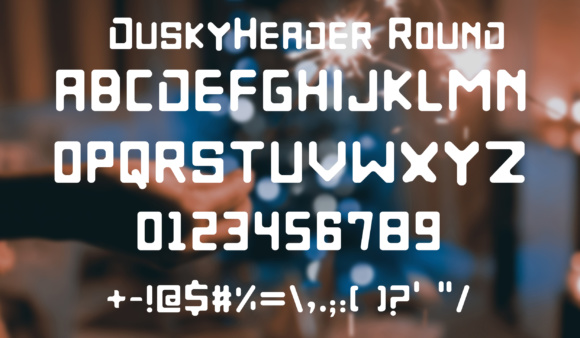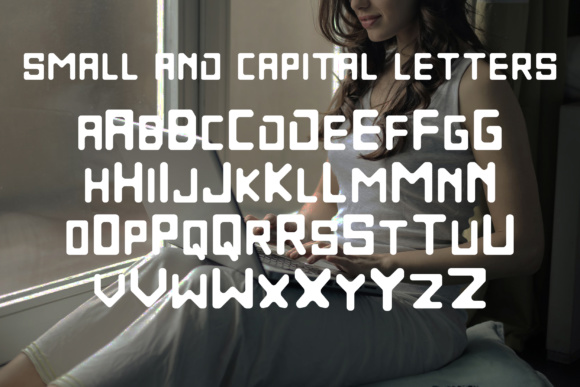
DuskyHeader Round Font: Elevate Your Designs with a Cool and Catchy Style
Are you a designer or crafter looking for a font that can add a touch of coolness to your creations? Look no further than the DuskyHeader Round font! This stylish font is perfect for use on t-shirts, logos, posters, and more, and can be used as a header font or to highlight important text to grab the attention of your viewers.
What Makes DuskyHeader Round Font So Special?
DuskyHeader Round font is a unique and modern sans-serif font that features rounded edges and a distinctive aesthetic. Its clean and simple design makes it highly versatile, allowing it to be used in a wide range of design projects. Whether you’re creating a logo, poster, or t-shirt design, DuskyHeader Round font is sure to make your text stand out.
Key Features of DuskyHeader Round Font
• Rounded Edges: The rounded edges of DuskyHeader Round font give it a soft and friendly feel, making it perfect for designs that require a more approachable look.
• Clean and Simple Design: The clean and simple design of DuskyHeader Round font makes it easy to read and understand, even at small sizes.
• Highly Versatile: DuskyHeader Round font can be used in a wide range of design projects, from logos and posters to t-shirts and more.
• Attention-Grabbing: The unique style of DuskyHeader Round font makes it perfect for use as a header font or to highlight important text and grab the attention of your viewers.
Uses for DuskyHeader Round Font
DuskyHeader Round font is a highly versatile font that can be used in a wide range of design projects. Here are some ideas to get you started:
• T-Shirt Designs: Use DuskyHeader Round font to create eye-catching t-shirt designs that will stand out from the crowd.
• Logos: Create a professional and modern logo for your business or brand using DuskyHeader Round font.
• Posters: Use DuskyHeader Round font to create bold and eye-catching posters that will grab the attention of your audience.
• Signs: Use DuskyHeader Round font to create signs that are easy to read and understand.
Tips for Using DuskyHeader Round Font
Here are some tips for using DuskyHeader Round font in your designs:
• Use it as a Header Font: Use DuskyHeader Round font as a header font to grab the attention of your viewers and add visual interest to your designs.
• Pair it with Other Fonts: Pair DuskyHeader Round font with other fonts to create a unique and visually appealing design.
• Experiment with Colors: Experiment with different colors to find the perfect combination for your design.
• Keep it Simple: Keep your design simple and easy to understand to ensure that your message is clear.
Font Name DuskyHeader Round Font
Author Laks Mi
DuskyHeader Round font is a cool and catchy font that is perfect for designers and crafters looking to add a touch of style to their creations. Its unique and modern design makes it highly versatile, and it can be used in a wide range of design projects. Whether you’re creating a logo, poster, or t-shirt design, DuskyHeader Round font is sure to make your text stand out. So why not give it a try and see the difference it can make in your designs?